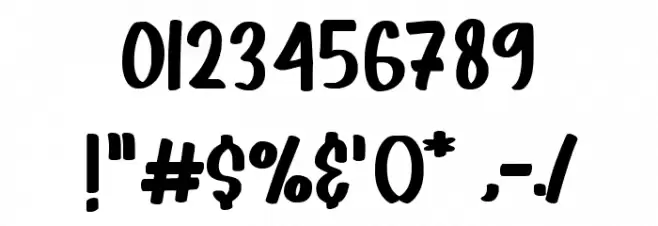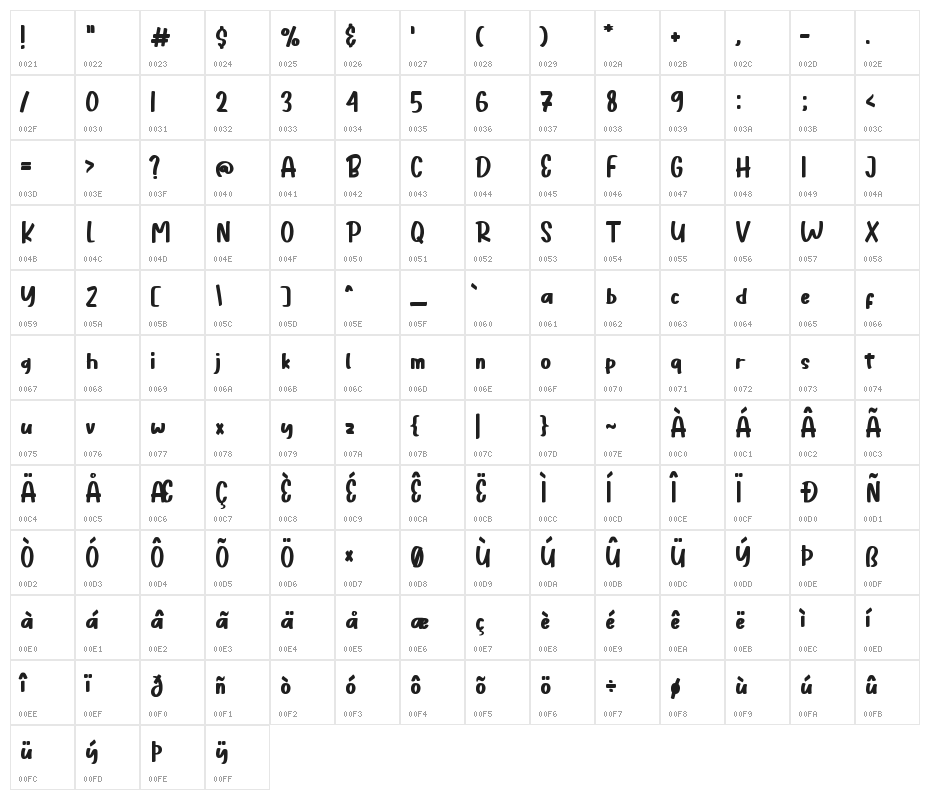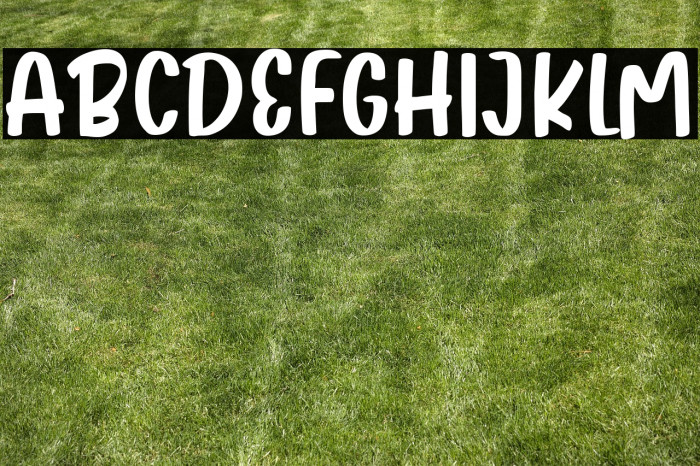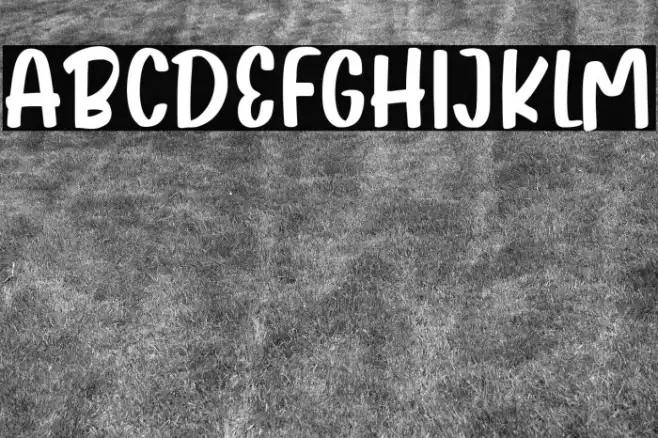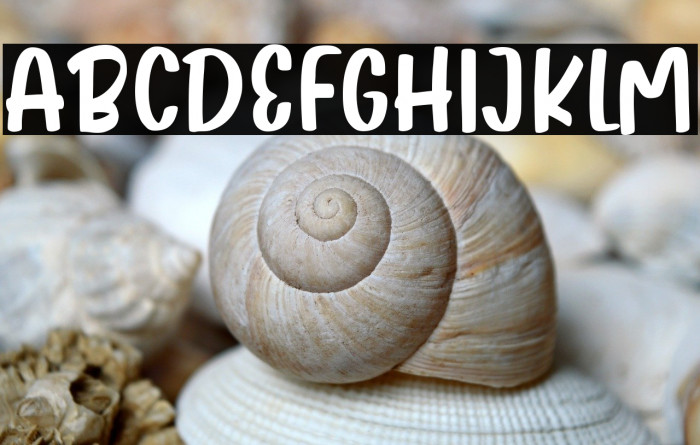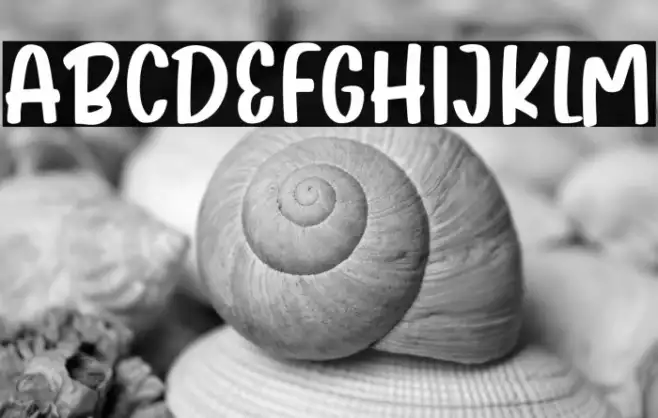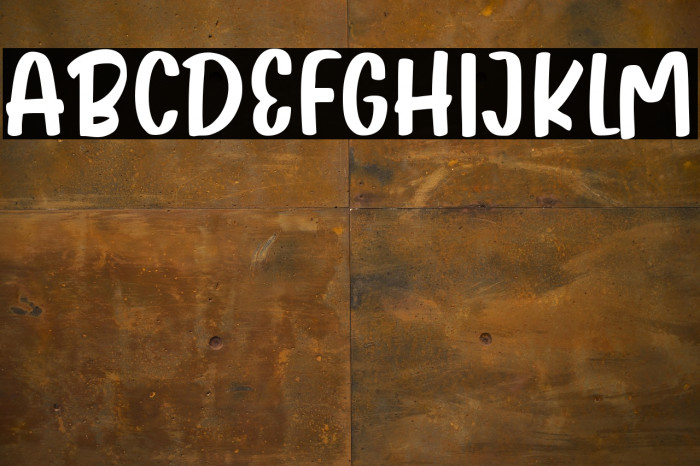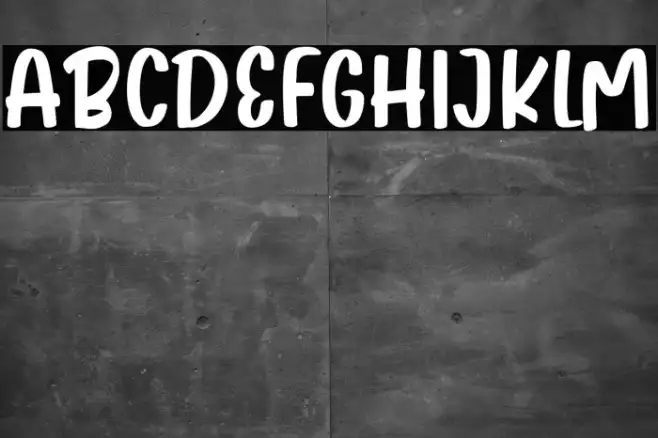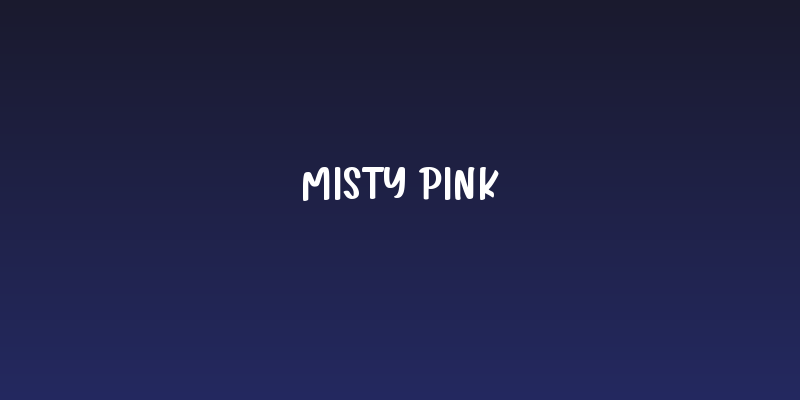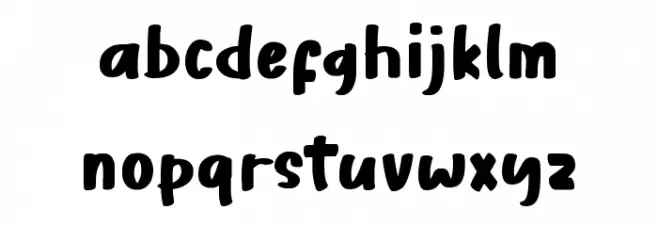
Misty Pink Font
Misty Pink Description
This font features a playful and casual handwritten style with rounded edges and a slightly irregular baseline, giving it a friendly and approachable appearance. The characters are bold and have a consistent weight throughout, making them easily legible. The uppercase and lowercase letters maintain a uniform style, with a slight slant that adds to the informal feel. The numerals and special characters are designed to match the overall aesthetic, ensuring cohesion across all text elements.